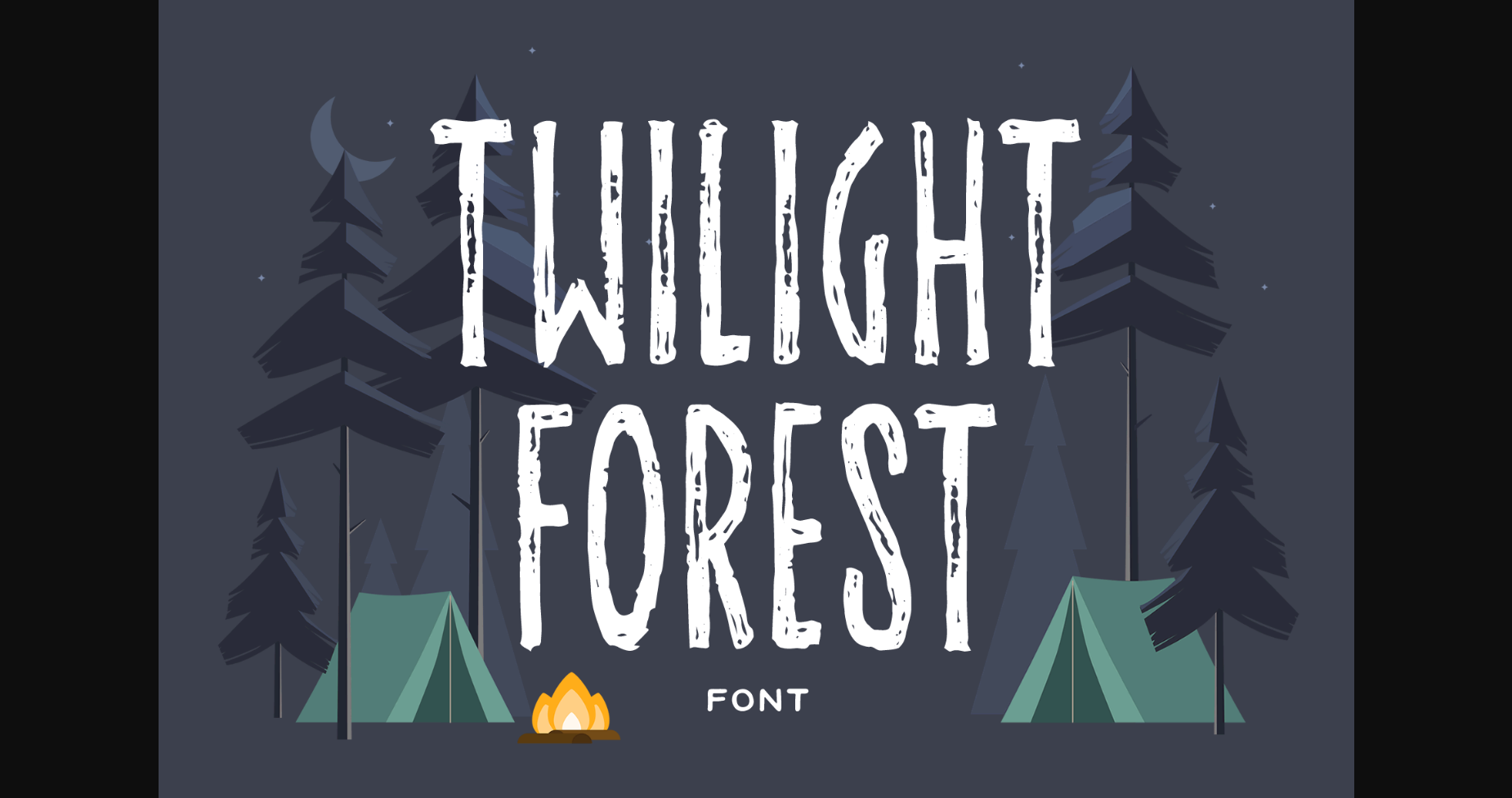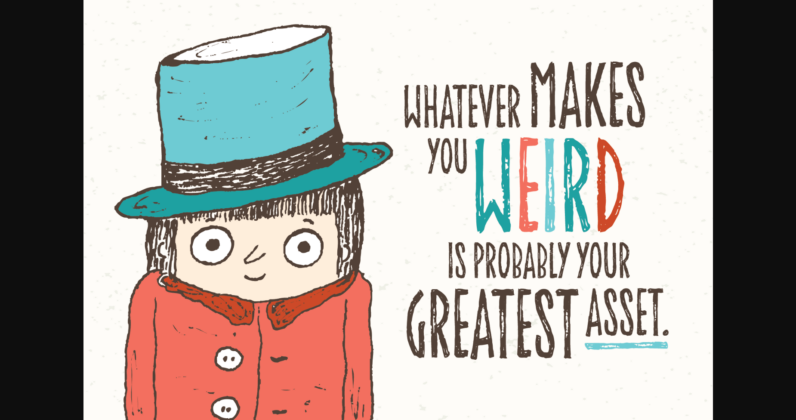
About Twilight Forest Font
Twilight Forest is a condensed, rough-edged, all-caps font. It gives a casual, sketchy feel that pairs great with illustrations, while still keeping a clean and readable look. Works great at larger sizes where the texture can really be seen.